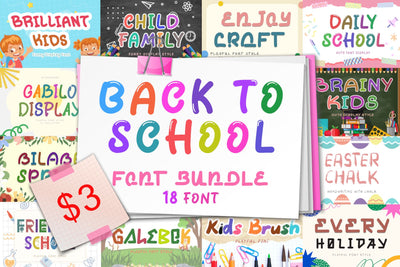
Back To School Font Bundle
This bundle contains 18 fonts Back to School:
1. Child Family
2. Brainy Kids
3. Brilliant Kids
4. Friendly School
5. Bilabo Spring
6. Every Holiday
7. Enjoy Craft
8. Easter Chalk
9. Kids Brush
10. Christmas Display
11. Christmas Donuts
12. The Valensia
13. Catty Pillow
14. Daily School
15. Bobby Christmas
16. Gabilo Display
17. Galebok
18. With Bomby